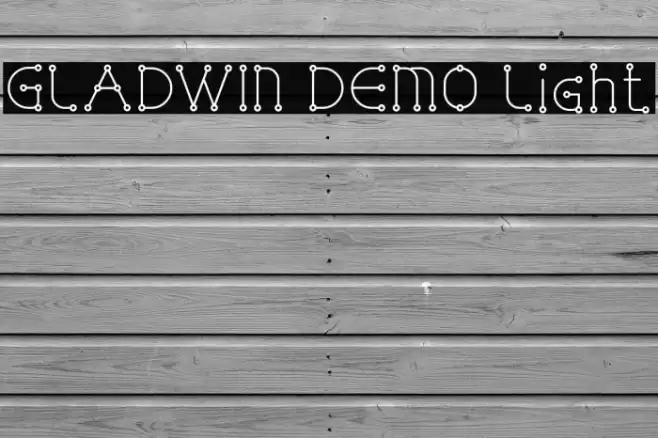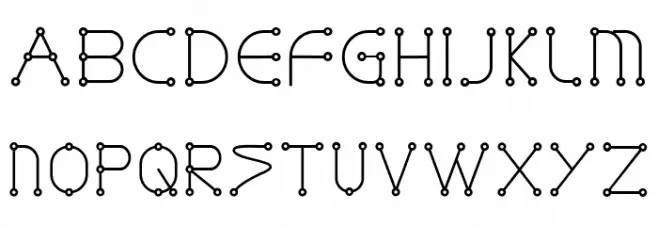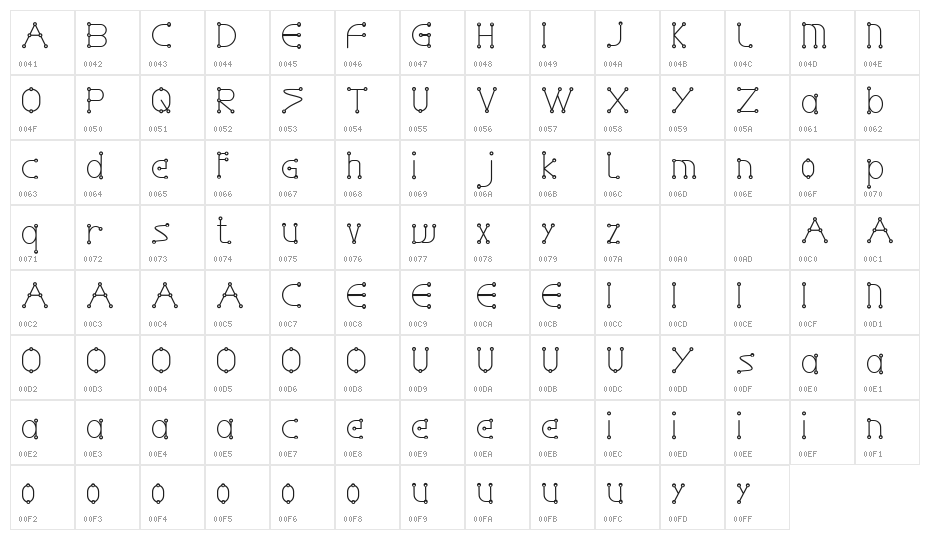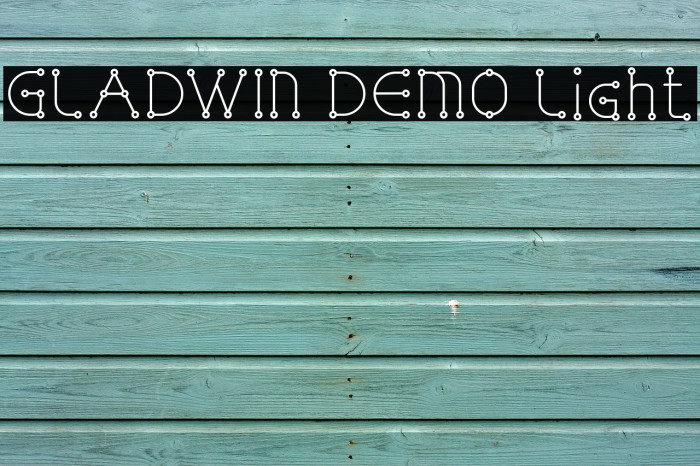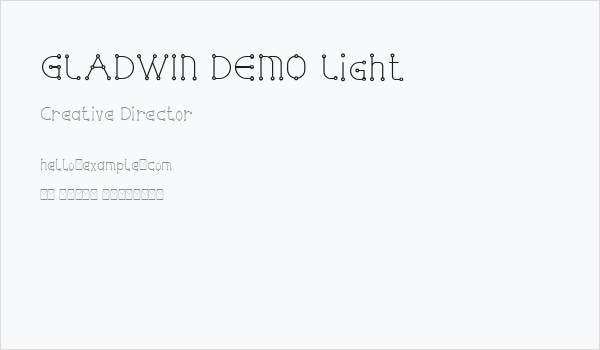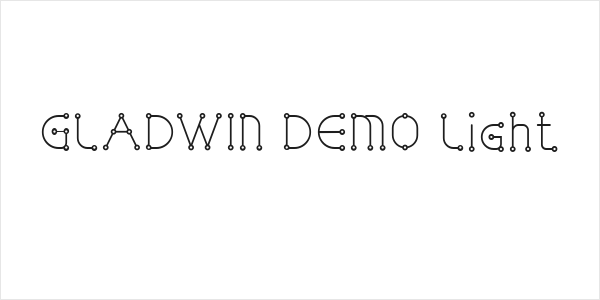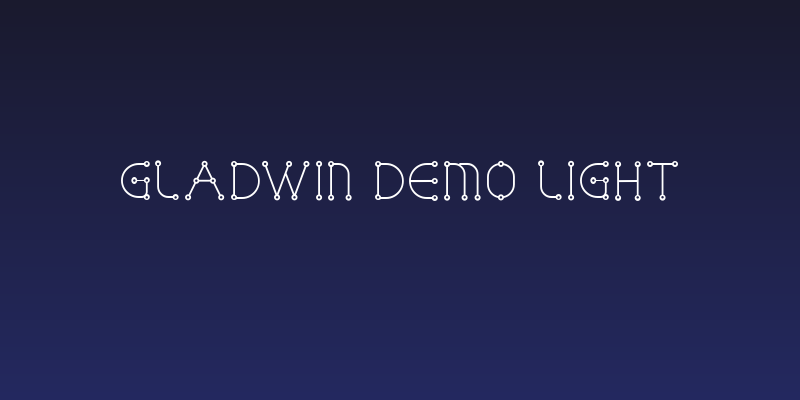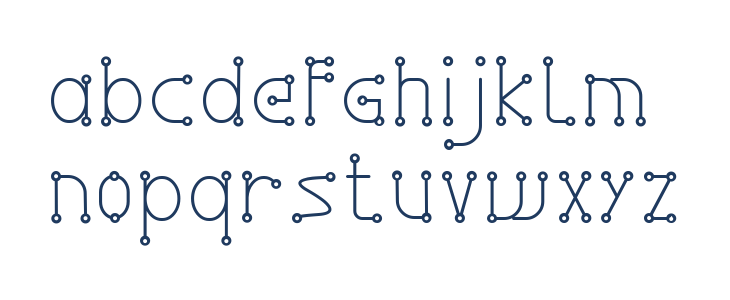
GLADWIN DEMO Light Font
GLADWIN DEMO Light Description
This font features a unique and modern design, characterized by its use of dots and lines to form each letter. The letters are constructed with a series of dots connected by straight lines, giving it a geometric and technical appearance. The overall look is clean and minimalistic, yet visually intriguing due to the unconventional structure. The uppercase and lowercase letters maintain a consistent style, with rounded edges and uniform spacing. Numbers and special characters follow the same design principles, ensuring a cohesive appearance across all glyphs. This font is ideal for projects that require a futuristic or tech-inspired aesthetic.
A modern, geometric font with dots and lines forming each character from Decorative fonts.
- Proposed Projects: Ideal for tech branding, futuristic designs, digital interfaces, and creative posters.